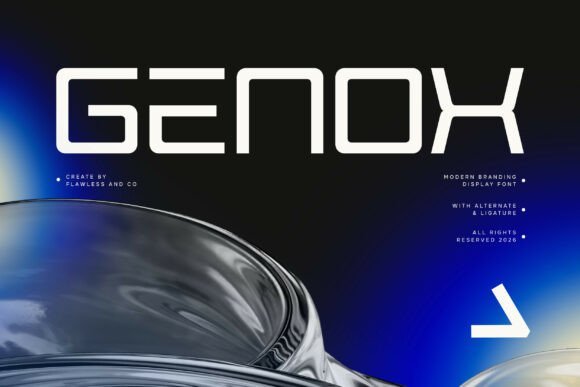
Unleashing the Power of Modern Typography
Have you ever stared at a blank canvas, trying to bring an idea to life? For designers, this moment can be both exhilarating and intimidating. But what if you had the perfect tool to give your design that extra oomph? Enter Genox Font, a modern branding display typeface designed to create a strong and memorable visual identity.
With its clean structure, sharp edges, and contemporary letterforms, Genox Font delivers a confident and professional look that stands out across various design needs. Whether you’re designing logos, headlines, or promotional materials, Genox Font brings a powerful and stylish presence to your work, making it a valuable asset for any designer looking to elevate their brand’s visual identity.
Genox Font Key Features
- Font Family: Genox Font is a sans-serif font family, designed to provide a clean and modern look for digital and print media.
- Character Set: Supports a wide range of languages, including Latin, Cyrillic, Greek, and many others, making it a versatile font for global applications.
- Size: Genox Font is available in 5 font weights (Light, Regular, Medium, Bold, and Extra Bold) and 3 font styles (Regular, Italic, and Bold Italic).
- Unique Characteristics: Genox Font features a unique geometric design with clean lines and rounded corners, making it perfect for modern branding and design projects.
Genox Font Review
As a designer, I recently had the chance to work with the Genox font, and I must say it’s a mixed bag. Let’s start with the positives.
- ✨ The Genox font has a unique, modern aesthetic that sets it apart from more common fonts.
- ✨ It’s highly legible, even at small font sizes, making it perfect for digital interfaces.
- ✨ The font comes in a range of weights, from light to bold, giving designers plenty of flexibility.
However, there are some limitations to consider.
- ⚠️ The Genox font may not be the best choice for print materials, as it can appear a bit sterile and lacking in character.
- ⚠️ Some users may find the font’s unique style off-putting or difficult to read at first.
- ⚠️ The font’s range of weights can be overwhelming, making it difficult to choose the perfect weight for a particular project.
Overall, I’d say the Genox font is a solid choice for digital projects, but may not be the best fit for print materials. With some practice and experimentation, designers can get the most out of this versatile font.
Tips for Getting the Most Out of Genox Font
Here are some tips to help you get the most out of Genox Font:
- Use Genox Font for headings and titles to add a touch of sophistication to your designs.
- Combine Genox Font with other fonts to create a unique and eye-catching look.
Genox Font is perfect for:
- Corporate branding and identity design.
- Luxury product packaging and marketing materials.
- High-end website design and development.
Alternatives to Genox Font for Designers
Open Sans is a modern sans-serif font that is highly legible and versatile. It’s suitable for body text and headings, making it a great choice for digital design projects such as websites and mobile apps. Compared to Genox Font, Open Sans has a more minimalist and clean design, making it ideal for modern and professional-looking designs.
Lato is a sans-serif font with a friendly and approachable feel. It’s perfect for projects that require a warm and inviting tone, such as branding and advertising materials. Lato has a similar feel to Genox Font, but with a more rounded and elegant design.
Montserrat is a geometric sans-serif font that is highly versatile and suitable for a wide range of projects. It’s a great choice for projects that require a modern and urban feel, such as urban design and street art. Compared to Genox Font, Montserrat has a more geometric and industrial design, making it ideal for projects that require a bold and edgy look.